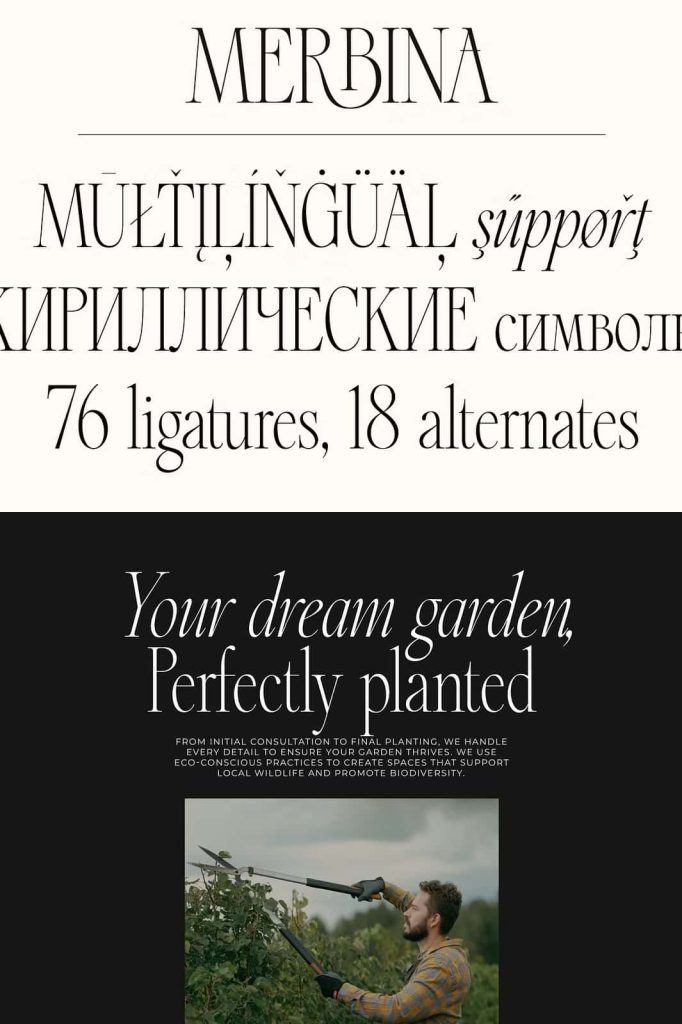
Merbina – Elegant Serif Typeface
Merbina Serif Typeface for Elegant and Modern Design
Merbina is a sophisticated serif typeface that blends classic elegance with a refined modern touch. Designed to elevate visual aesthetics, Merbina delivers smooth curves, graceful serifs, and a polished structure that enhances any creative project. Whether you are crafting a luxury brand identity or designing stylish invitations, this typeface provides the elegance and versatility needed to stand out.
A Perfect Balance of Classic and Contemporary Style
Merbina stands out by combining traditional serif elements with modern design principles. Its carefully shaped letterforms create a harmonious balance that feels both timeless and fresh. Designers can use this font to achieve a premium look without sacrificing readability or flexibility.
The refined detailing in each character ensures that your typography looks intentional and professional. This makes Merbina an excellent choice for projects that demand both beauty and precision.
Multiple Styles for Creative Freedom
Merbina offers a versatile set of styles, including regular, italic, expanded, and expanded italic. Each variation gives you the ability to explore different visual directions while maintaining a cohesive design system. You can easily switch between styles to create contrast, hierarchy, and emphasis within your layouts.
The italic styles add a sense of movement and elegance, while the expanded versions provide a bold and distinctive presence. This flexibility allows you to adapt the typeface to a wide range of creative needs.
Ideal for Luxury Branding
Luxury branding requires attention to detail and a strong visual identity. Merbina helps you achieve both by delivering a refined and upscale appearance. Its elegant letterforms communicate sophistication and exclusivity, making it perfect for high-end brands.
You can use Merbina to design logos, brand marks, and visual elements that reflect quality and professionalism. The font’s versatility ensures that your branding remains consistent across different platforms, from print materials to digital applications.
Create Stunning Logos and Visual Identities
Merbina empowers designers to create logos that feel distinctive and memorable. Its smooth curves and balanced proportions make it easy to craft wordmarks and typographic logos that leave a lasting impression.
By combining different styles within the Merbina family, you can build layered and dynamic visual identities. This approach helps you create designs that feel cohesive while still offering visual interest.
Enhance Invitations and Stationery
If you want to design elegant invitations, Merbina delivers exceptional results. Its graceful serifs and refined structure add a touch of sophistication to wedding invitations, event stationery, and greeting cards. The font enhances the overall presentation, making every piece feel premium and thoughtfully designed.
You can pair the regular and italic styles to create beautiful typographic compositions that guide the reader’s eye and highlight important details.
Versatile for Print and Digital Projects
Merbina performs well across both print and digital mediums. Its clarity and balance ensure that it remains readable at different sizes, making it suitable for a wide range of applications. From packaging design to social media graphics, this typeface adapts effortlessly to your creative workflow.
Designers can use Merbina in editorial layouts, promotional materials, and online content without compromising quality. Its modern elegance translates seamlessly across different formats and platforms.
Key Features of Merbina Typeface
• Elegant serif typeface with modern refinement
• Includes regular, italic, expanded, and expanded italic styles
• Graceful curves and balanced proportions
• Ideal for luxury branding and premium design projects
• Works effectively in both print and digital applications
Elevate Your Creative Work with Merbina
Merbina gives designers the tools to create visually striking and sophisticated designs. Its combination of elegance, versatility, and modern style makes it a valuable addition to any creative toolkit. You can rely on this typeface to deliver consistent, high-quality results across a wide range of projects.
If you want to produce designs that feel refined, timeless, and impactful, Merbina is the perfect choice. Use it to enhance your branding, elevate your typography, and create visuals that leave a lasting impression.